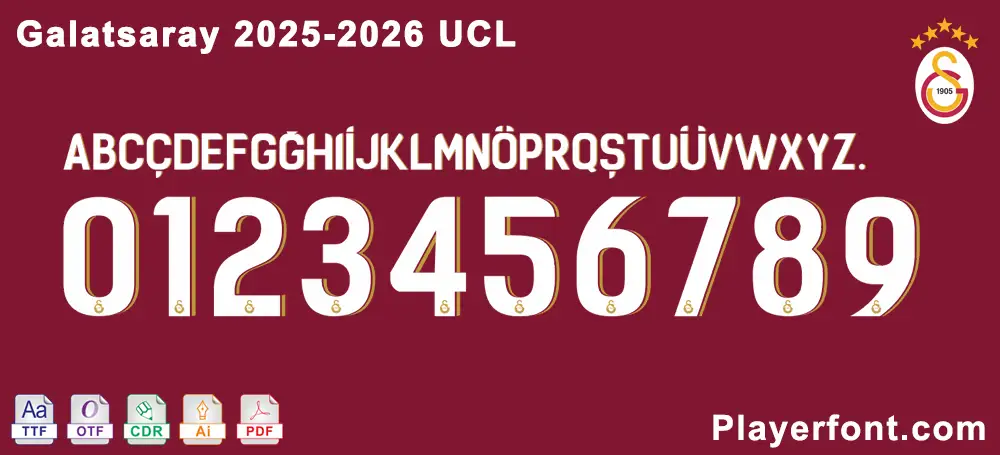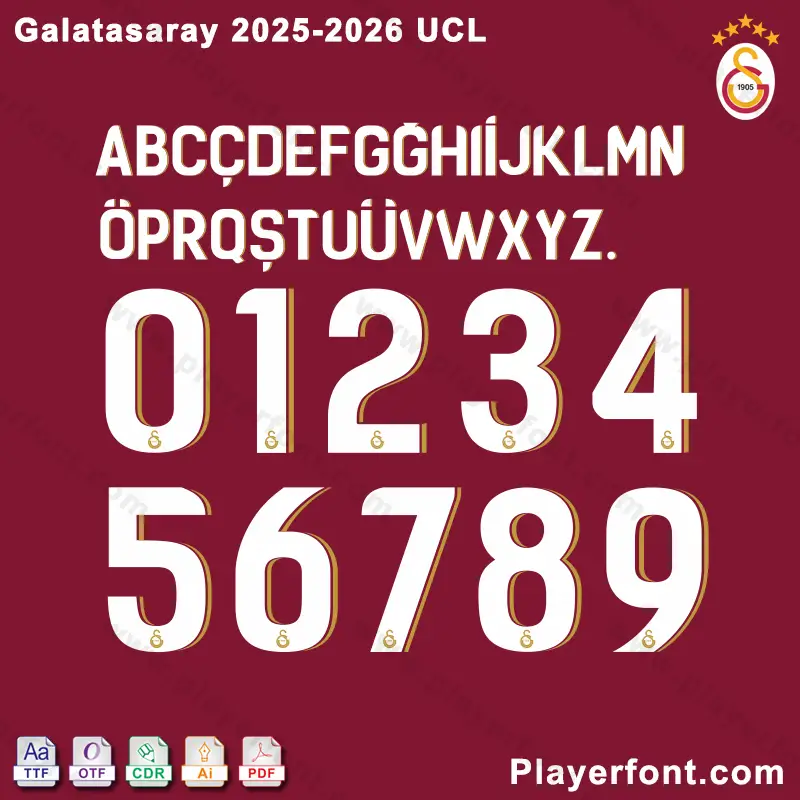
Bring your sports design projects to life with the official Galatasaray 2025-2026 UCL font. Specifically designed for the UEFA Champions League season, this font captures the prestigious look of the Turkish giants. Whether you are a professional kit designer or a passionate fan, this vector pack provides the precision and scalability required for high-end results.
Product Features & Character Support
Complete Alphabet: Includes the full uppercase set with specific Turkish characters (Ç, Ğ, İ, Ö, Ş, Ü) for 100% accuracy.
UCL Style Numbers: Features the distinct 2025-2026 number set (0-9) with the integrated club emblem at the base.
Our Galatasaray 2025-26 kit font is meticulously recreated to match the official jersey proportions. Unlike low-resolution images, our vector files ensure your prints are sharp, professional, and free of pixelation.